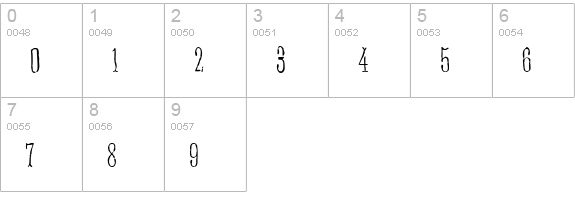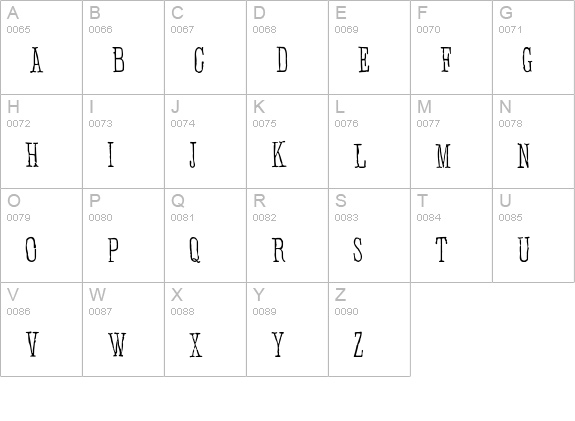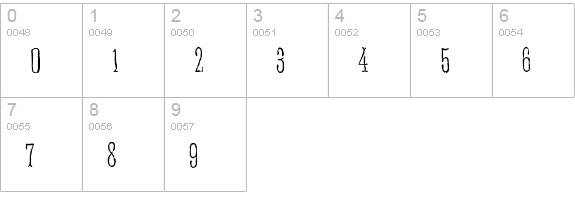
Anhedonia Font Details
Anhedonia font is a unique and modern typeface that exudes simplicity and elegance. With its clean lines and minimalist design, this font is perfect for a wide range of projects, from branding to editorial design. The sleek and sophisticated look of Anhedonia font will add a touch of contemporary flair to any design. What sets Anhedonia font apart is its versatility - it can be used for both headlines and body text with ease. The font features a full character set, including uppercase and lowercase letters, numbers, punctuation marks, and special characters. Its clean and legible design ensures readability across various mediums. One of the best things about Anhedonia font is that it is completely free to download at FontsMarket.com. Whether you are a designer working on a commercial project or a hobbyist looking to spruce up your personal creations, this font is readily available for you to use. Don't miss out on the opportunity to elevate your designs with the sleek and modern Anhedonia font - download it today and let your creativity shine!